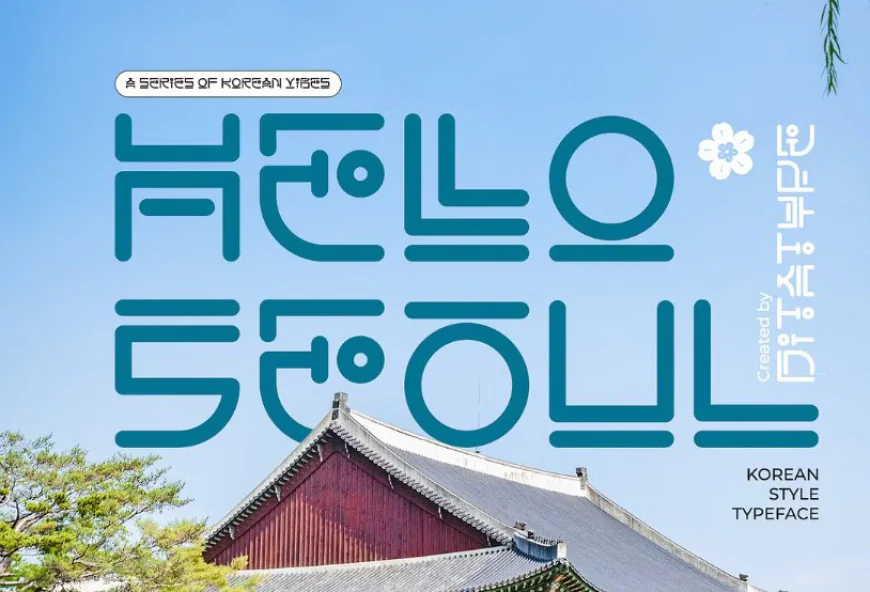
Hello Seoul is a bold display font infused with the dynamic spirit of Seoul. It greets the world with a modern touch, blending Korean aesthetics with contemporary design for a truly eye-catching look.